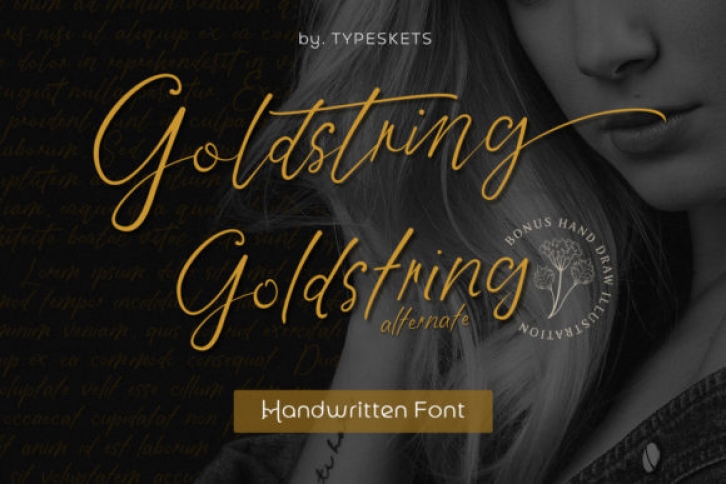
Goldstring is inspired by classic typography and brings its own unique style to any design project. This handwritten font is the perfect fit for all of your logos, branding, social media, and crafty DIY projects.